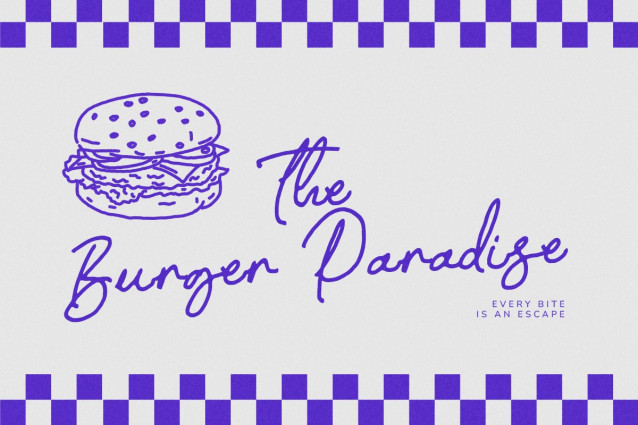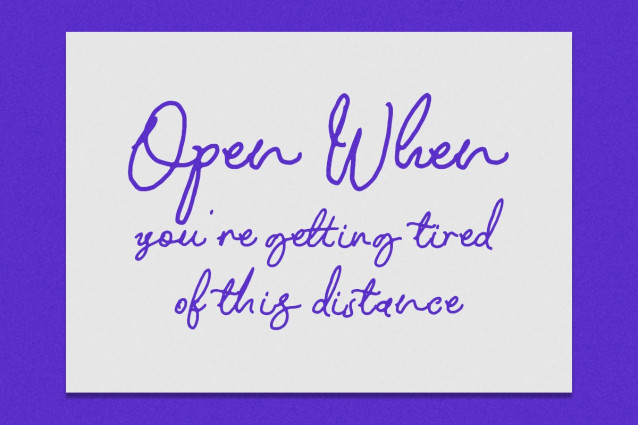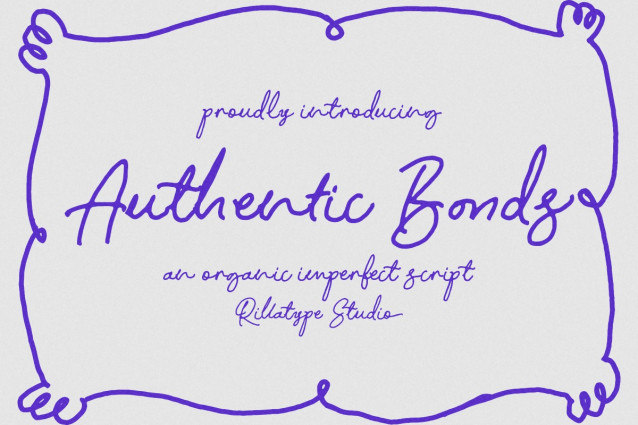
RT Authentic Bonds Font
RT Authentic Bonds Font is an imperfect script font meticulously crafted to convey its inherent imperfections with a touch of authenticity and charm. Each stroke is crafted with care, showcasing its handcrafted essence while maintaining visual appeal. Designed to evoke a sense of warmth and character, this font adds a unique touch to your projects, effortlessly capturing the beauty of imperfection. Let Authentic Bonds infuse your designs with personality and originality, creating connections and resonating with audiences in a genuine and heartfelt manner.